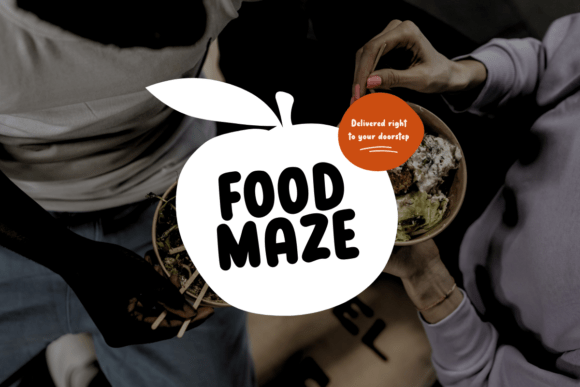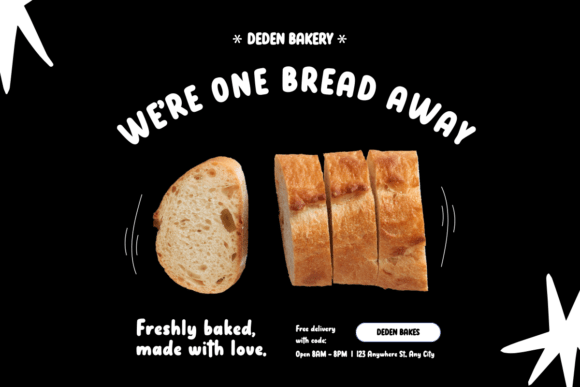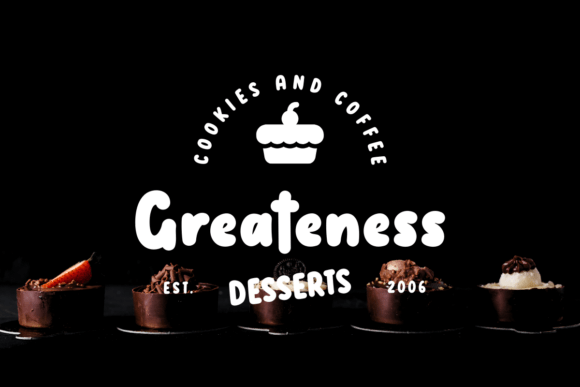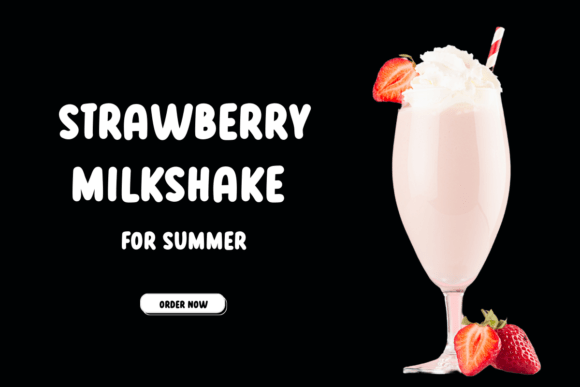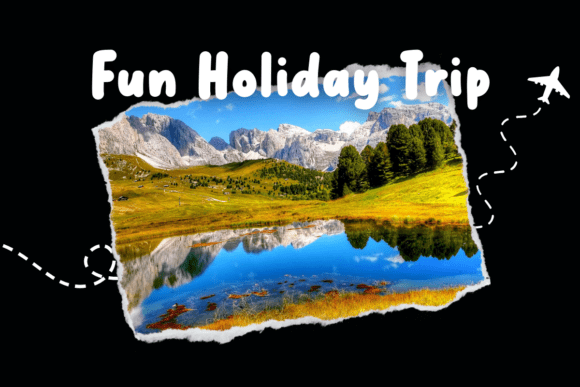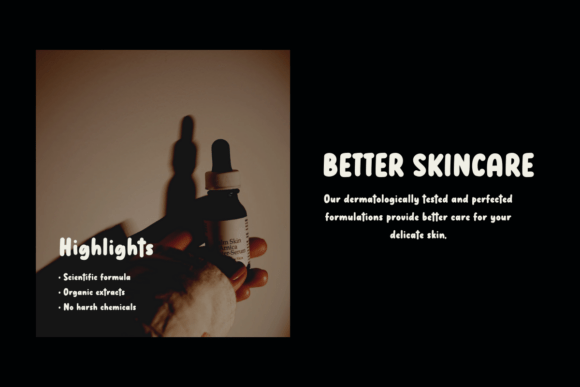
Introducing Guava Harvest Font: Add a Burst of Personality to Your Designs
Are you tired of using the same old fonts in your creative projects? Look no further than Guava Harvest Font, a fun and cheerful handwritten display font that’s sure to bring a smile to your face. With its bouncy letters and organic strokes, this font is perfect for adding a touch of playful charm to your branding, packaging, posters, social media graphics, and more.
The Inspiration Behind Guava Harvest
Guava Harvest Font is inspired by the feeling of a sunny day at the farmer’s market. The font’s creator wanted to capture the warmth and approachability of handwritten notes, and bring that feeling to your designs. The result is a font that feels perfectly imperfect, with a charm that’s hard to resist.
What Makes Guava Harvest Special
- Bouncy letters: Guava Harvest Font features bouncy letters that add a sense of energy and playfulness to your designs.
- Organic strokes: The font’s organic strokes give it a handmade feel that’s perfect for crafting and DIY projects.
- Perfectly imperfect: Guava Harvest Font is designed to feel like a handwritten note, with subtle imperfections that add to its charm.
Uses for Guava Harvest Font
Guava Harvest Font is incredibly versatile, and can be used in a wide range of creative projects. Here are some ideas to get you started:
- Branding: Add a touch of personality to your brand with Guava Harvest Font. It’s perfect for logos, business cards, and other marketing materials.
- Packaging: Make your products stand out with Guava Harvest Font. It’s great for labels, tags, and other packaging materials.
- Posters: Create eye-catching posters with Guava Harvest Font. It’s perfect for advertising, promotions, and events.
- Social media graphics: Add a touch of playfulness to your social media graphics with Guava Harvest Font. It’s great for Facebook posts, Instagram stories, and more.
- Kids’ products: Guava Harvest Font is perfect for kids’ products, such as toys, games, and educational materials.
Designing with Guava Harvest
Guava Harvest Font is easy to use and pairs well with a variety of other fonts. Here are some tips for designing with Guava Harvest:
- Pair with a sans-serif font: Pair Guava Harvest Font with a sans-serif font for a clean and modern look.
- Use it as a headline font: Guava Harvest Font is perfect for headlines and titles. Use it to add a touch of personality to your designs.
- Experiment with colors: Guava Harvest Font looks great in a variety of colors. Experiment with different hues to find the perfect look for your design.
Guava Harvest Font is a fun and cheerful handwritten display font that’s perfect for adding a touch of personality to your creative projects. With its bouncy letters and organic strokes, this font feels like a handwritten note from a sunny day at the farmer’s market. Whether you’re designing for a handmade soap label or a cozy café menu, Guava Harvest Font is sure to bring a warm and approachable vibe to your designs. So why wait? Download Guava Harvest Font today and start adding a burst of personality to your designs!